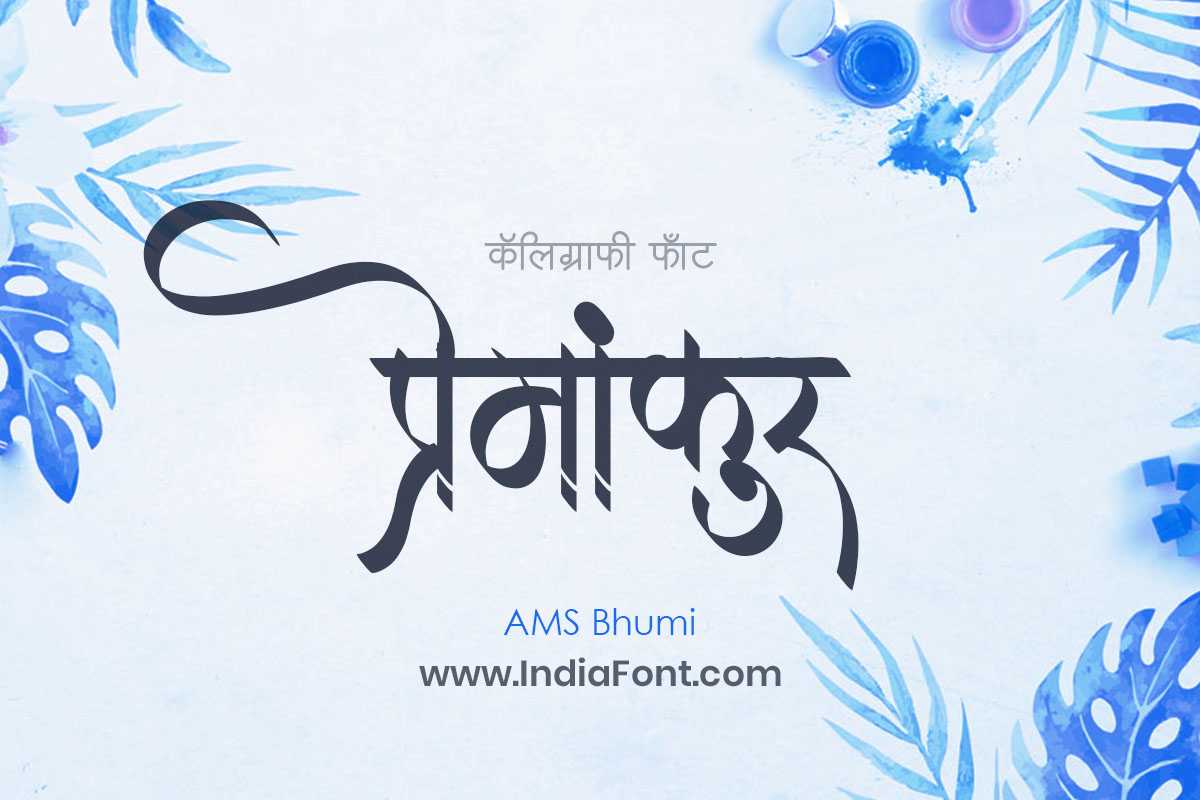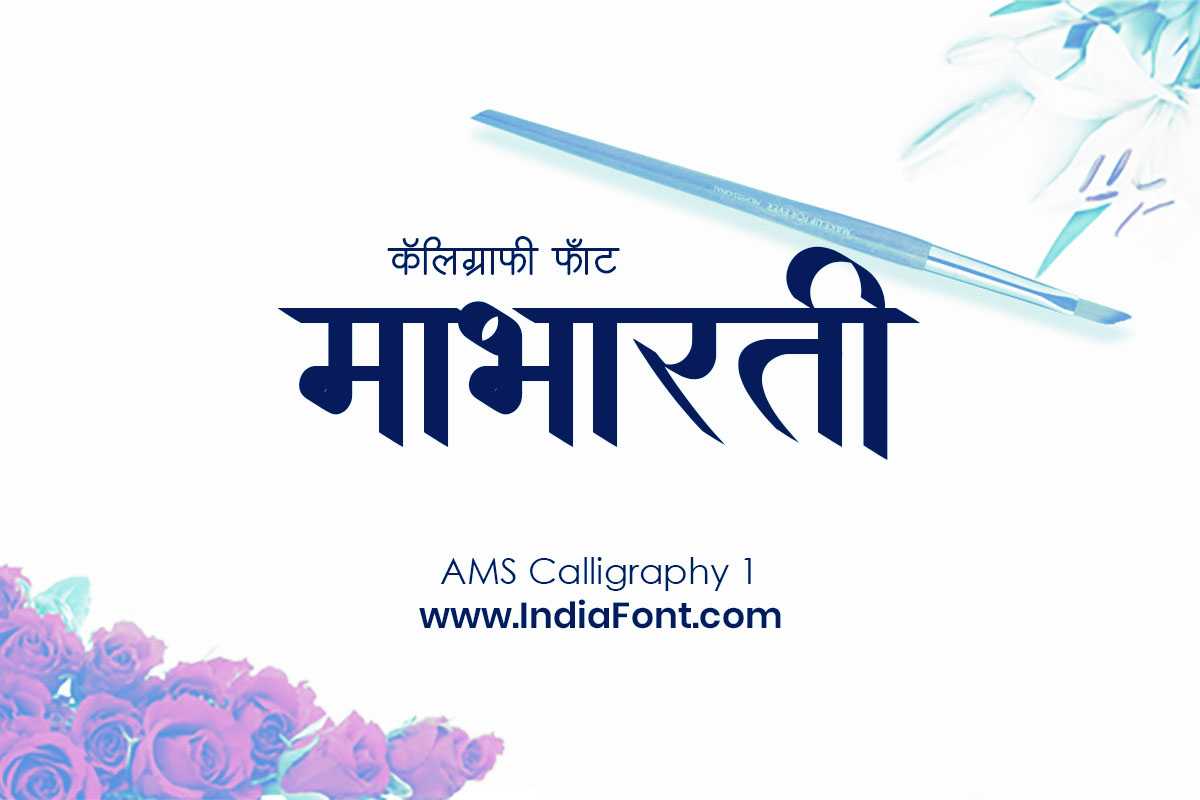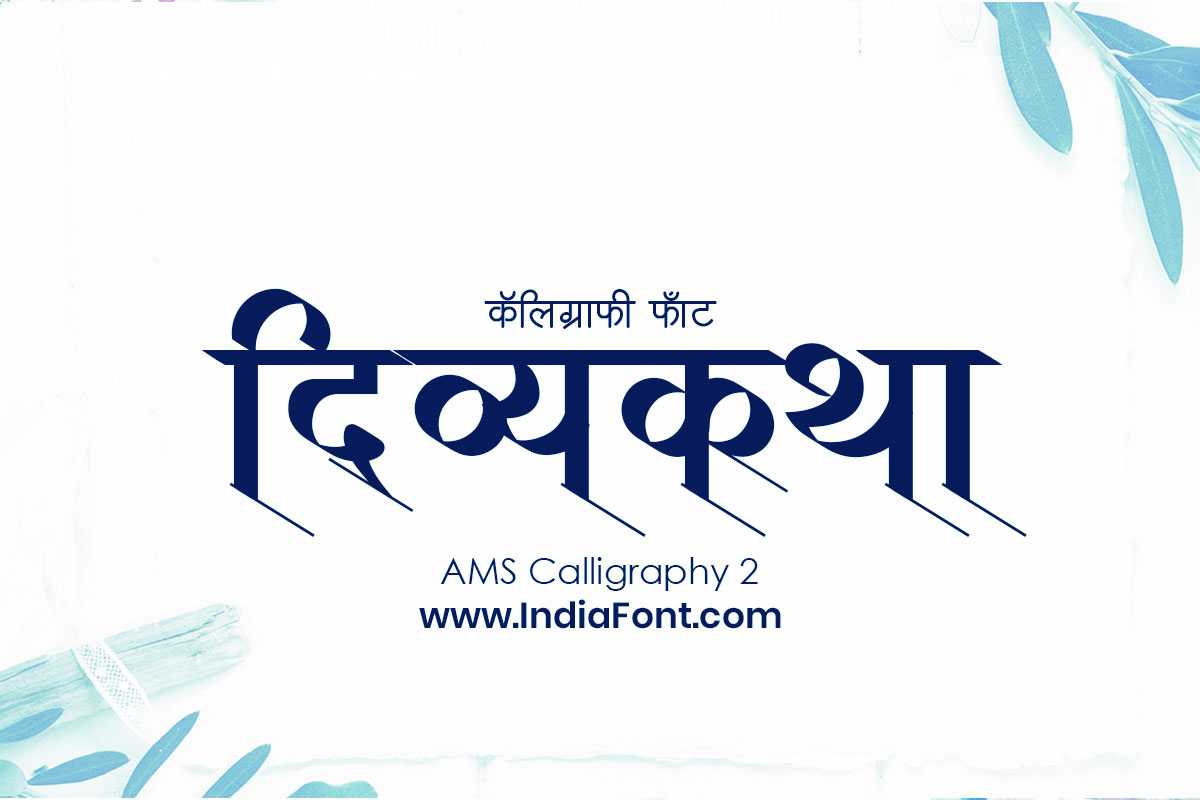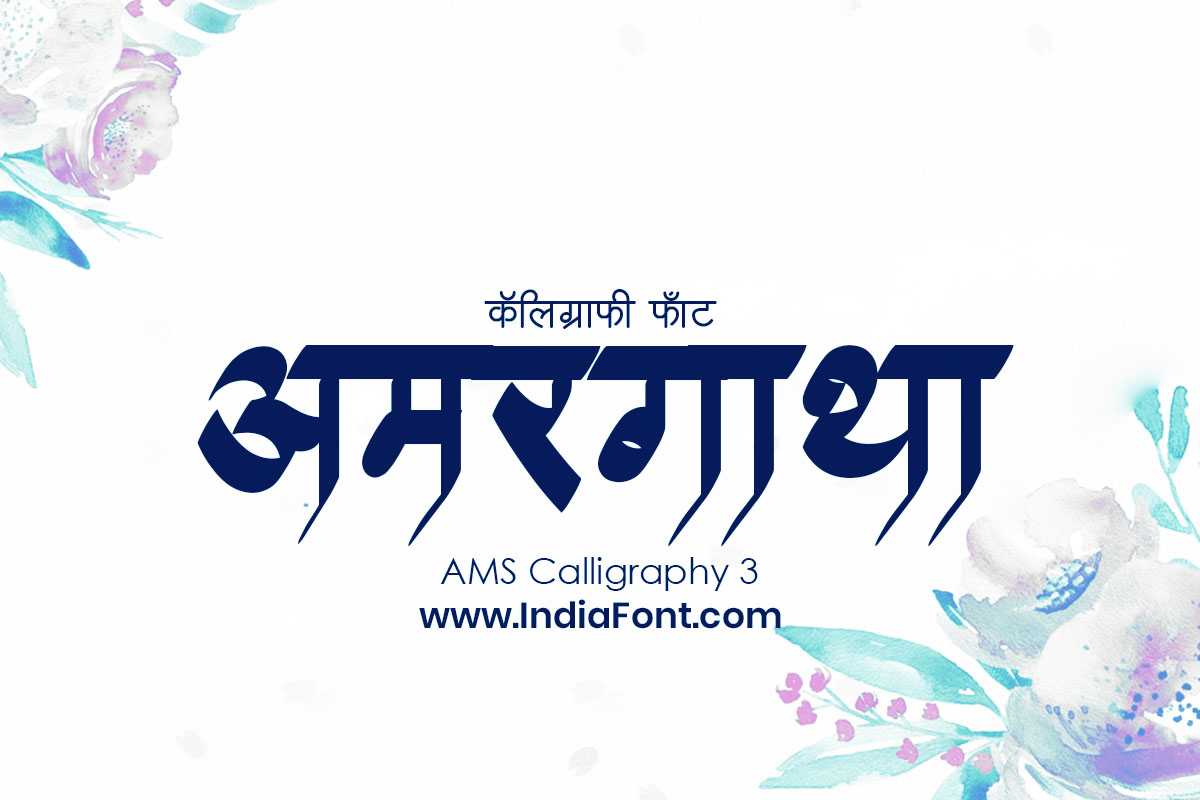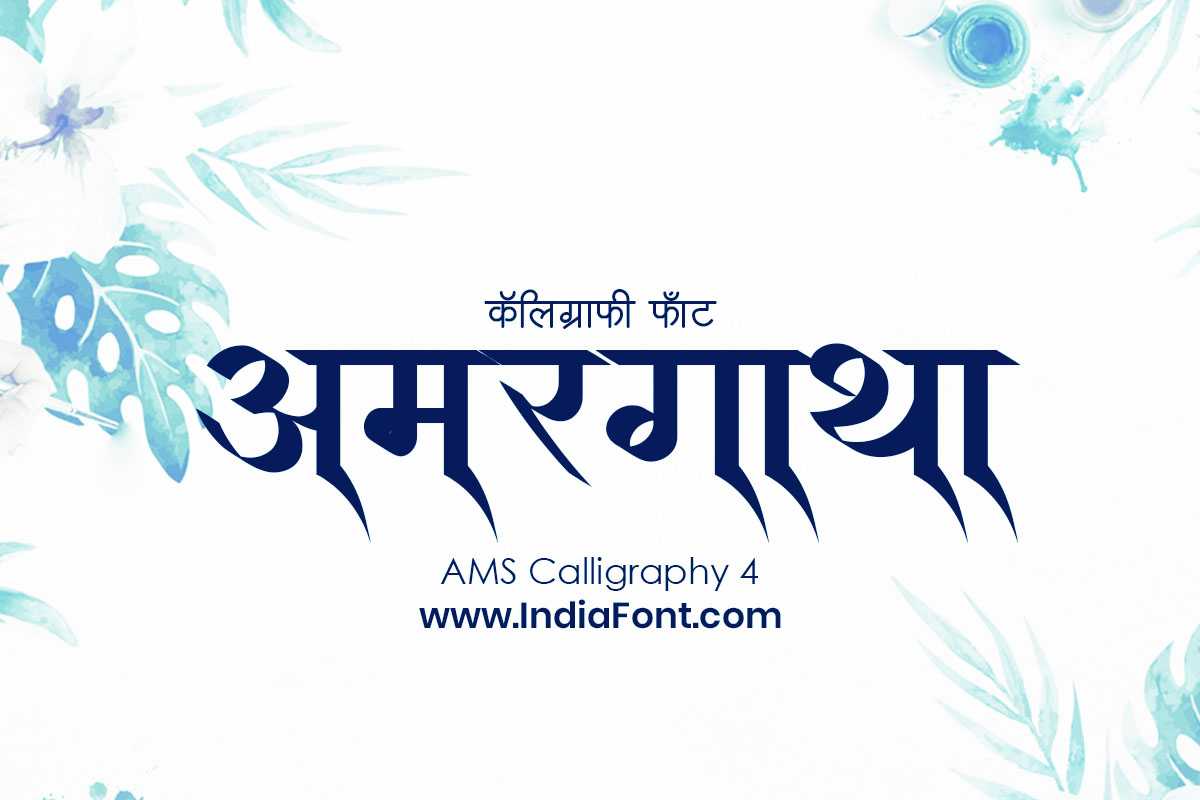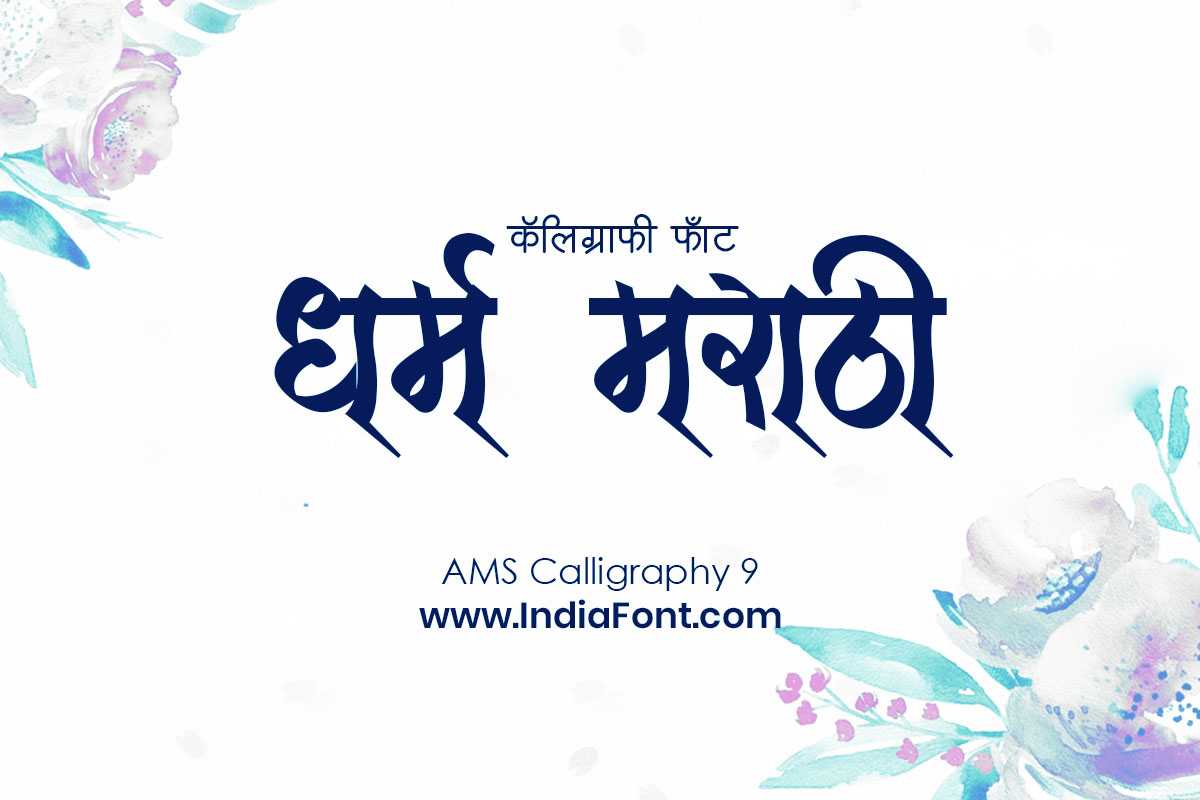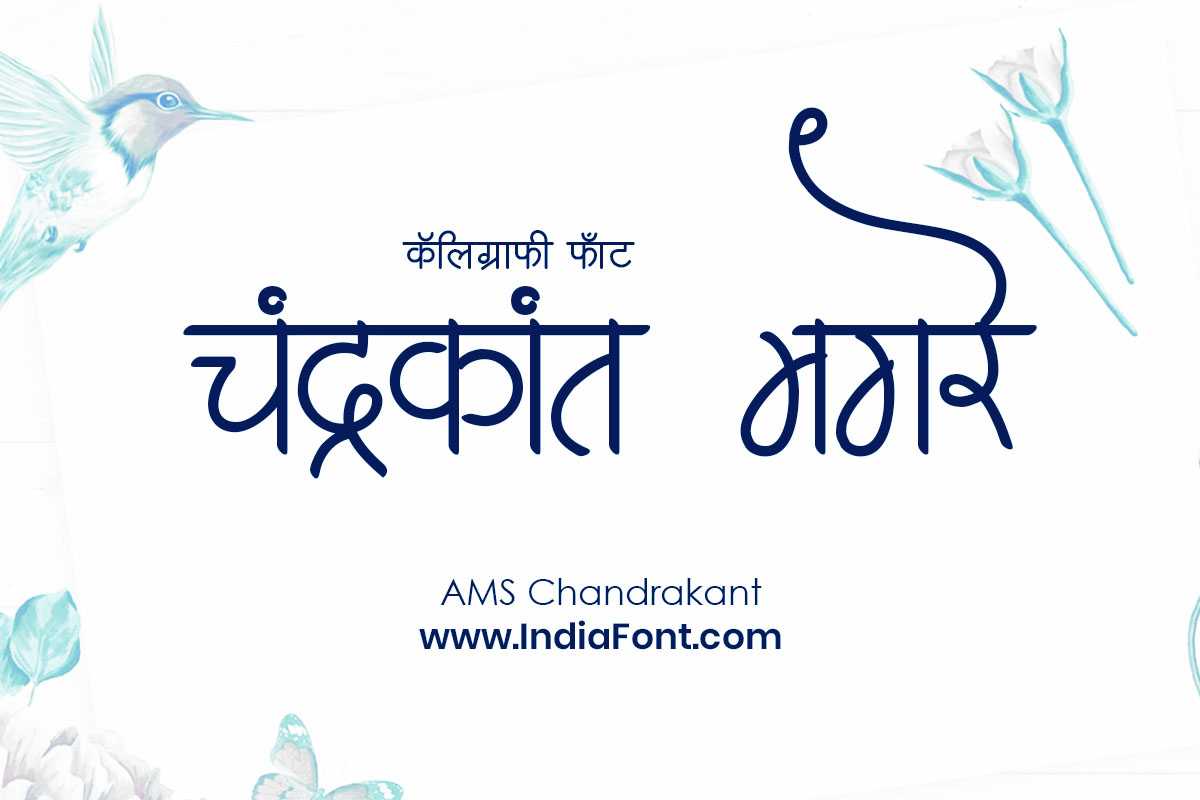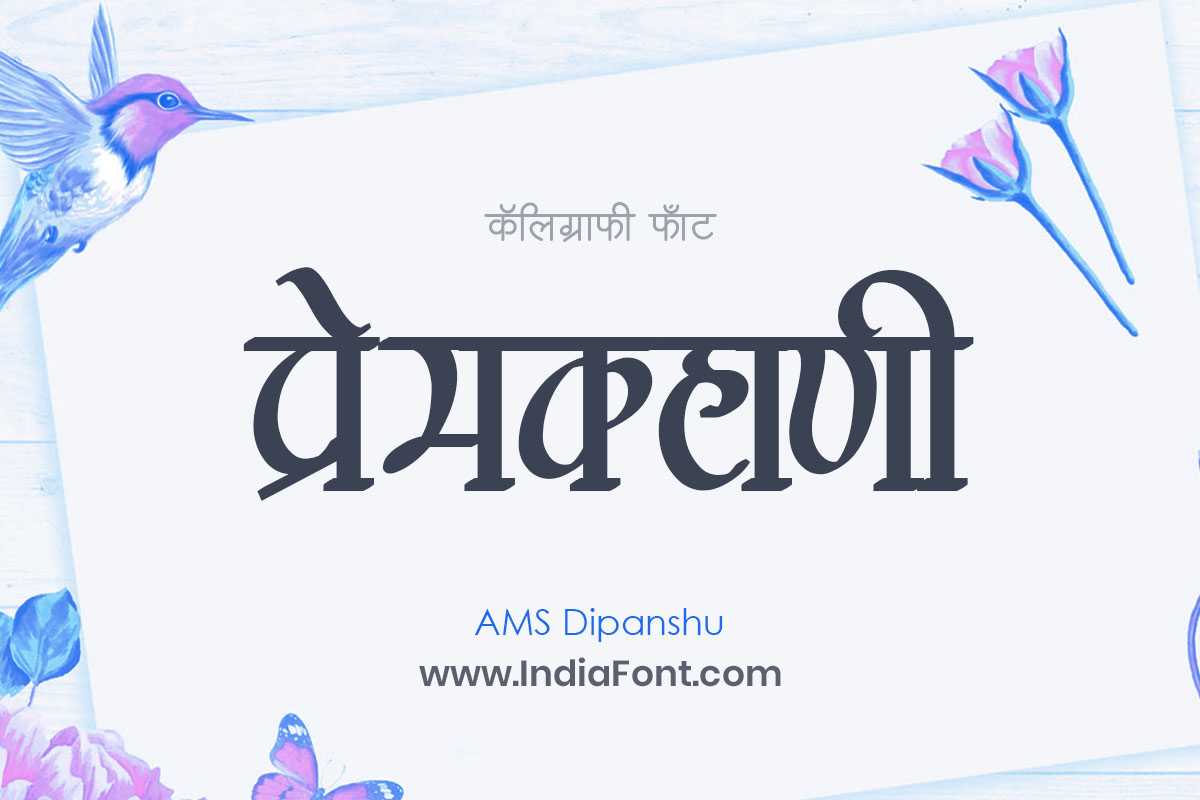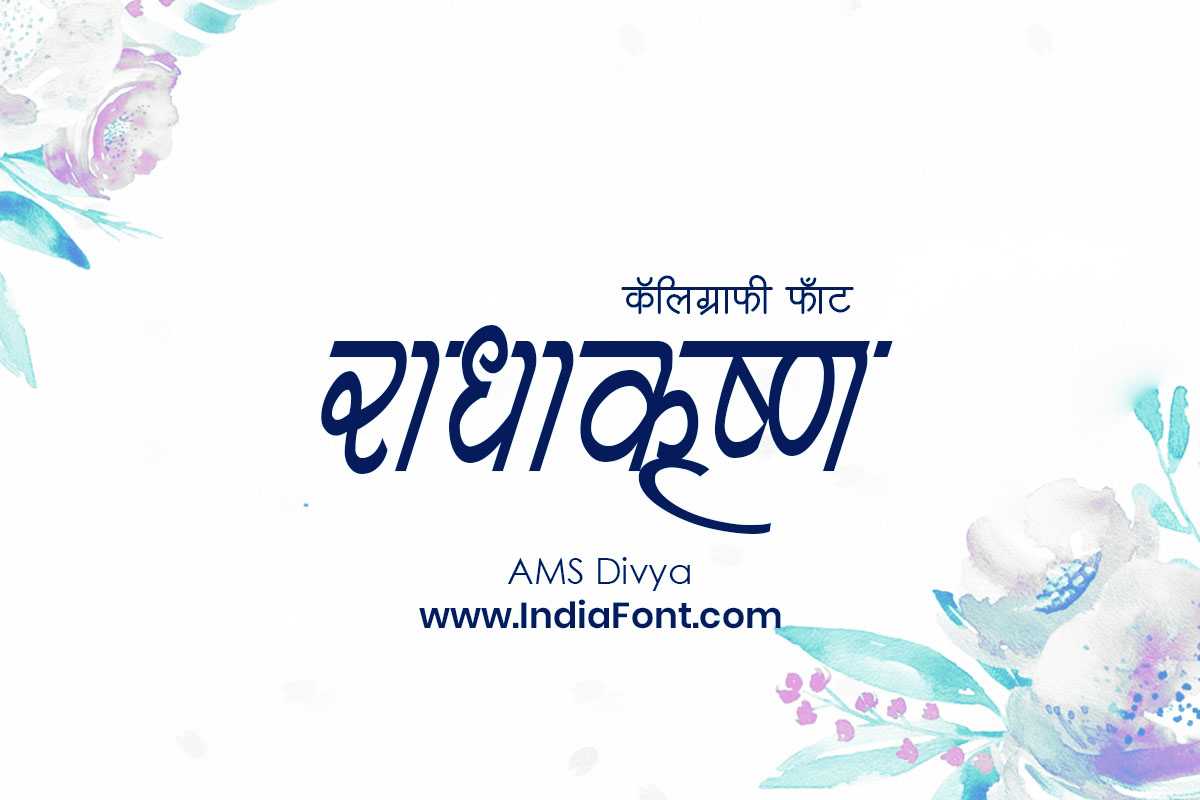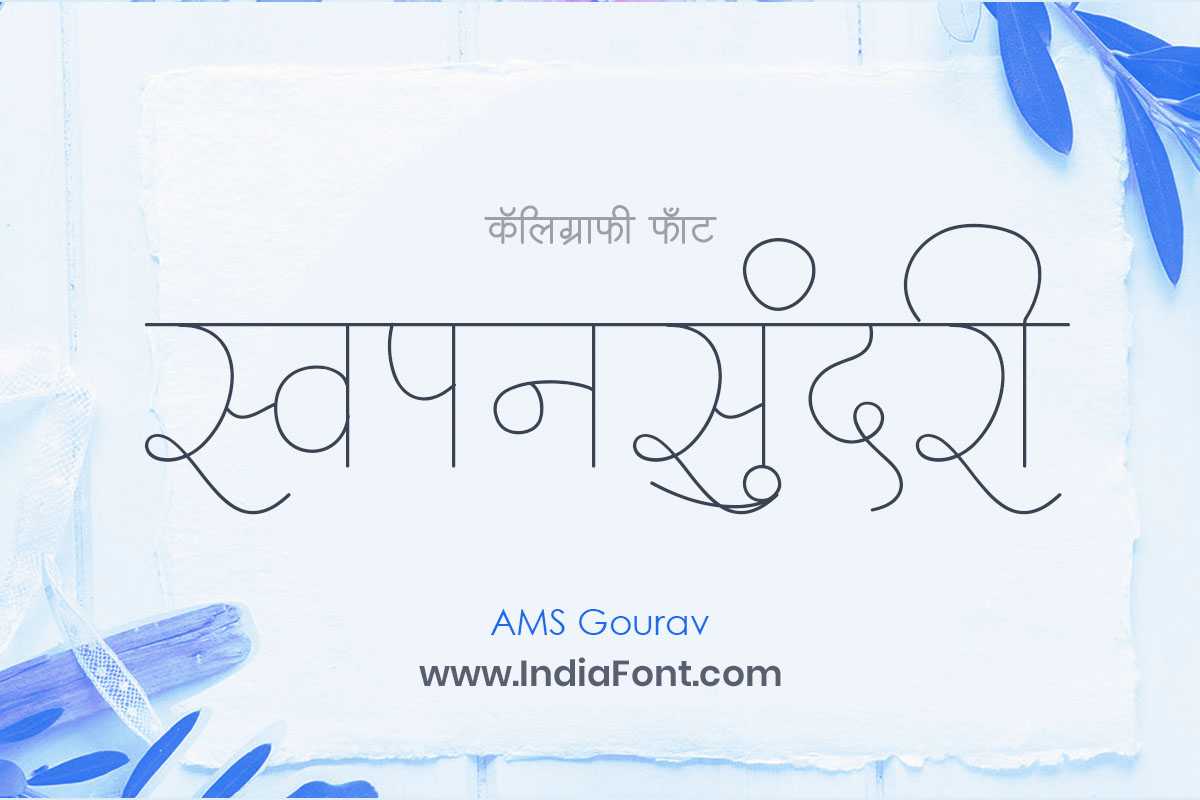
Beautiful Handwriting Fonts
Discover our premium collection of handwriting, script, and calligraphy fonts. Perfect for adding a personal touch to invitations, logos, and creative projects.
Explore our collection of 86 handwriting fonts
AMS Yogesh Artistic Expressive Calligraphy Font Preview
AMS Yogesh
calligraphy 1 weight Hindi
Experience the artistry of AMS Yogesh, a calligraphy font that captures attention with its flowing and expressive letterforms. This font is ideal for designers seeking stylish Hindi fonts, calligraphy fonts that evoke a sense of creativity, or fonts that offer a unique font style download.
AMS Tushar Artistic Handcrafted Calligraphy Font Preview
AMS Tushar
calligraphy 1 weight Hindi
Indulge in the artistic charm of AMS Tushar, a calligraphy font that celebrates the beauty of handcrafted lettering. This font is ideal for designers seeking stylish Hindi fonts, calligraphy fonts that evoke a sense of creativity, or fonts that offer a unique font style download.
AMS Shloka Poetic Elegant Calligraphy Font Preview
AMS Shloka
calligraphy 1 weight Hindi
AMS Shloka font: Capture the essence of poetic elegance with AMS Shloka, a calligraphy font that exudes grace and beauty. Whether you're seeking stylish Hindi fonts, calligraphy fonts that evoke a sense of artistry, or fonts available for free font download, AMS Shloka is a perfect choice.
AMS Varsha Graceful Fluid Calligraphy Font Preview
AMS Varsha
calligraphy 1 weight Hindi
Embrace the beauty of AMS Varsha, a calligraphy font that captures the essence of grace and fluidity. This font is ideal for designers looking for stylish Hindi fonts, calligraphy fonts that evoke a sense of elegance, or fonts that offer a unique font style download.
AMS Yogesh Artistic Expressive Calligraphy Font Preview
AMS Yogesh
calligraphy 1 weight Hindi
Experience the artistry of AMS Yogesh, a calligraphy font that captures attention with its flowing and expressive letterforms. This font is ideal for designers seeking stylish Hindi fonts, calligraphy fonts that evoke a sense of creativity, or fonts that offer a unique font style download.
AMS Tushar Artistic Handcrafted Calligraphy Font Preview
AMS Tushar
calligraphy 1 weight Hindi
Indulge in the artistic charm of AMS Tushar, a calligraphy font that celebrates the beauty of handcrafted lettering. This font is ideal for designers seeking stylish Hindi fonts, calligraphy fonts that evoke a sense of creativity, or fonts that offer a unique font style download.
AMS Shloka Poetic Elegant Calligraphy Font Preview
AMS Shloka
calligraphy 1 weight Hindi
AMS Shloka font: Capture the essence of poetic elegance with AMS Shloka, a calligraphy font that exudes grace and beauty. Whether you're seeking stylish Hindi fonts, calligraphy fonts that evoke a sense of artistry, or fonts available for free font download, AMS Shloka is a perfect choice.
AMS Varsha Graceful Fluid Calligraphy Font Preview
AMS Varsha
calligraphy 1 weight Hindi
Embrace the beauty of AMS Varsha, a calligraphy font that captures the essence of grace and fluidity. This font is ideal for designers looking for stylish Hindi fonts, calligraphy fonts that evoke a sense of elegance, or fonts that offer a unique font style download.
AMS Vardan Beautiful Elegant Calligraphy Font Preview
AMS Vardan
calligraphy 1 weight Hindi
Experience the beauty of AMS Vardan, a calligraphy font that exudes elegance and sophistication. This font is perfect for designers seeking stylish Hindi fonts, calligraphy fonts that make a statement, or fonts that offer a unique font style download.
AMS Minar Elegant Sophisticated Calligraphy Font Preview
AMS Minar
calligraphy 1 weight Hindi
Step into a world of elegance and sophistication with AMS Minar, a captivating calligraphy font that exudes style and grace. This font is perfect for designers looking for stylish Hindi fonts, calligraphy fonts that make a statement, or fonts that offer free font download options.
AMS Umakant Elegant Sophisticated Calligraphy Font Preview
AMS Umakant
calligraphy 1 weight Hindi
Unleash your creativity with AMS Umakant, a calligraphy font that brings a touch of elegance and sophistication to your designs. This font is perfect for designers looking for stylish Hindi fonts, calligraphy fonts that exude a sense of artistic expression, or fonts that offer a unique font style download.
Perfect for Invitations
Handwriting fonts add a personal touch to wedding invitations, birthday cards, and special announcements. They create warmth and intimacy in your designs.
Logo & Branding
Create memorable logos with handwriting fonts. They work especially well for creative businesses, cafes, boutiques, and artisan brands seeking an authentic feel.
Size Considerations
Use handwriting fonts at larger sizes (16px+) for better readability. They work best for headlines, signatures, and decorative elements rather than body text.